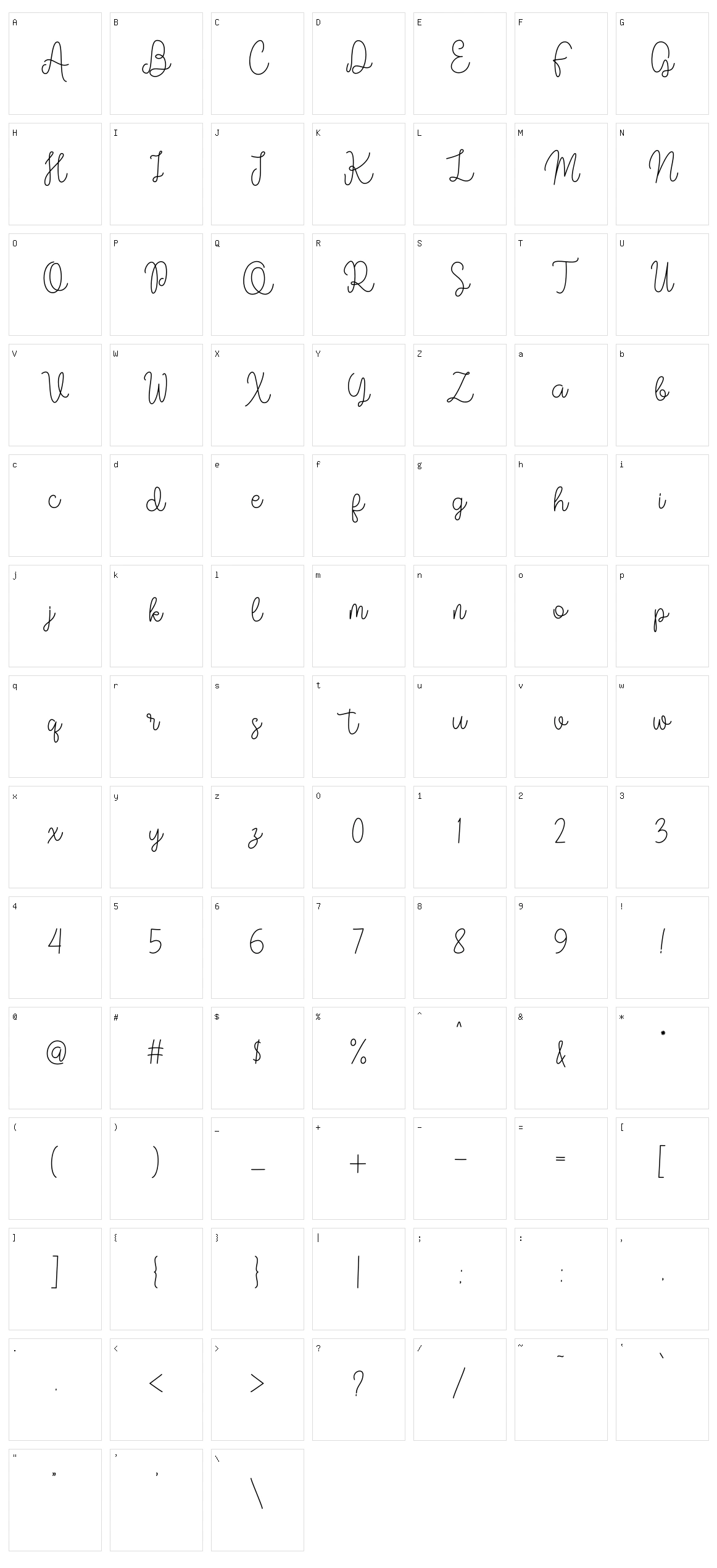
The free font Vilova 2.0 is carefully designed by Madatype Studio, showcasing a thoughtful balance of creativity and usability and falls under the Script font style. When you download the ZIP file, it contains only 233.55 KB of font files, making it lightweight and quick to download. Please review the license details below to understand permitted usage and distribution rights. If license information is not available, we recommend using this font for personal projects only or contacting the author directly for commercial usage permissions.